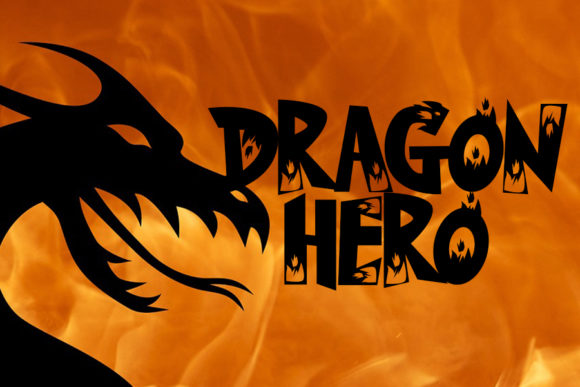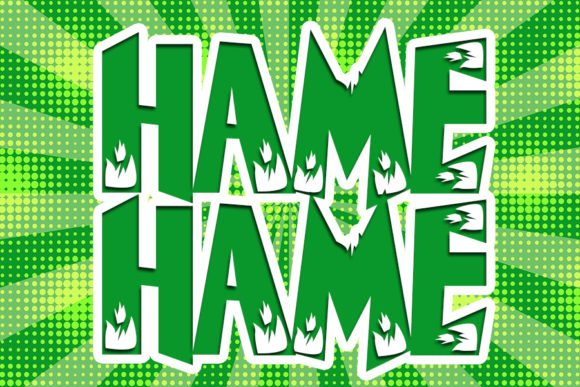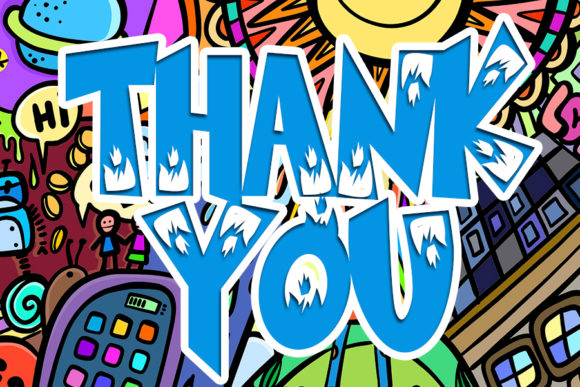
Introducing Boom Snow Font: The Ultimate Display Font for Creative Projects
Are you tired of using the same old fonts for your creative projects? Look no further than Boom Snow Font, a dramatic and bold display font that’s sure to elevate your designs to the next level. With its cartoon-like and lively style, Boom Snow Font is the perfect addition to any font library.
What is Boom Snow Font?
Boom Snow Font is a display font designed to make a statement. Its bold and dramatic style is perfect for creating eye-catching headings, titles, and captions that demand attention. The font’s cartoon-like and lively feel makes it ideal for use in a variety of creative projects, from children’s books and educational materials to posters, flyers, and social media graphics.
Key Features of Boom Snow Font
- Dramatic and Bold: Boom Snow Font is designed to make a statement. Its bold and dramatic style is perfect for creating eye-catching headings and titles.
- Cartoon-like and Lively: The font’s cartoon-like and lively feel makes it ideal for use in creative projects that require a playful touch.
- Versatile: Boom Snow Font can be used in a variety of creative projects, from print materials like posters and flyers to digital applications like social media graphics and presentations.
- Easily Readable: Despite its bold and dramatic style, Boom Snow Font is easily readable, making it perfect for use in headings and titles.
Benefits of Using Boom Snow Font
So why should you choose Boom Snow Font for your creative projects? Here are just a few benefits of using this amazing display font:
- Adds Visual Interest: Boom Snow Font adds a touch of drama and excitement to any creative project, making it perfect for designers and crafters looking to add some visual interest to their work.
- Perfect for Kids’ Projects: The font’s cartoon-like and lively style makes it ideal for use in kids’ projects, such as children’s books, educational materials, and activity sheets.
- Great for Social Media: Boom Snow Font is perfect for use in social media graphics, where its bold and dramatic style is sure to grab attention.
How to Use Boom Snow Font
Using Boom Snow Font is easy. Here are a few tips for incorporating this amazing display font into your creative projects:
- Use it as a Heading Font: Boom Snow Font is perfect for use as a heading font, where its bold and dramatic style can add visual interest to your work.
- Pair it with Other Fonts: Boom Snow Font can be paired with other fonts to create a unique and interesting look. Try pairing it with a sans-serif font for a modern and playful look.
- Experiment with Colors: Boom Snow Font looks great in a variety of colors. Experiment with different colors to find the one that works best for your project.